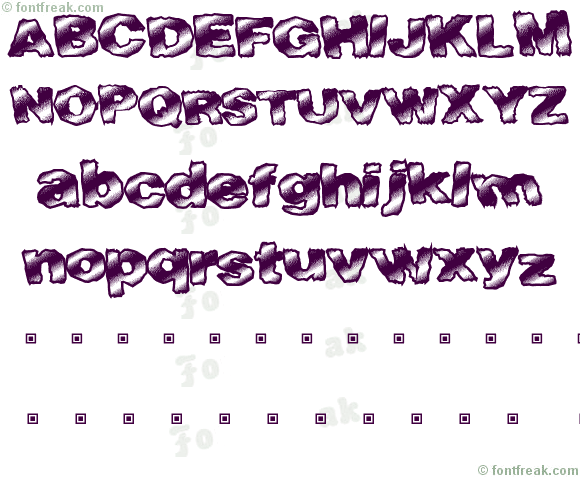
FastTime
About FastTime
FastTime by XEROGRAPHER FONTS is a distinctive display font that captures attention with its unique character and style. This font features a playful, energetic design that sets it apart as a standout choice for various creative projects. The visual characteristics of FastTime include a bold stroke weight with a slightly uneven texture, adding an organic, hand-crafted feel. The letters are loosely spaced, enhancing legibility while contributing to a casual and approachable aesthetic. This font’s dynamic appearance makes it suitable for a range of applications, from vibrant movie posters to eye-catching restaurant menus, where it can convey excitement and a sense of fun. Additionally, it works well for event flyers, promotional materials, or social media graphics aimed at engaging a youthful audience.
FastTime is particularly appealing to graphic designers, small business owners, and content creators who seek to infuse their work with a sense of character and personality. Its freeware license allows for easy access, making it an ideal choice for those looking to enhance their projects without budget constraints. The font's versatility ensures that it can adapt to various themes, whether you're promoting a local festival or designing a trendy café's branding.
What truly sets FastTime apart is its ability to combine boldness with a touch of whimsy. This font radiates energy and creativity, making it a fantastic choice for anyone looking to make a statement. With its captivating design and approachable feel, it stands out in a crowded marketplace, inviting users to explore their own creativity. For those interested, the FastTime font free download is readily available, allowing you to incorporate this unique typeface into your next project effortlessly.